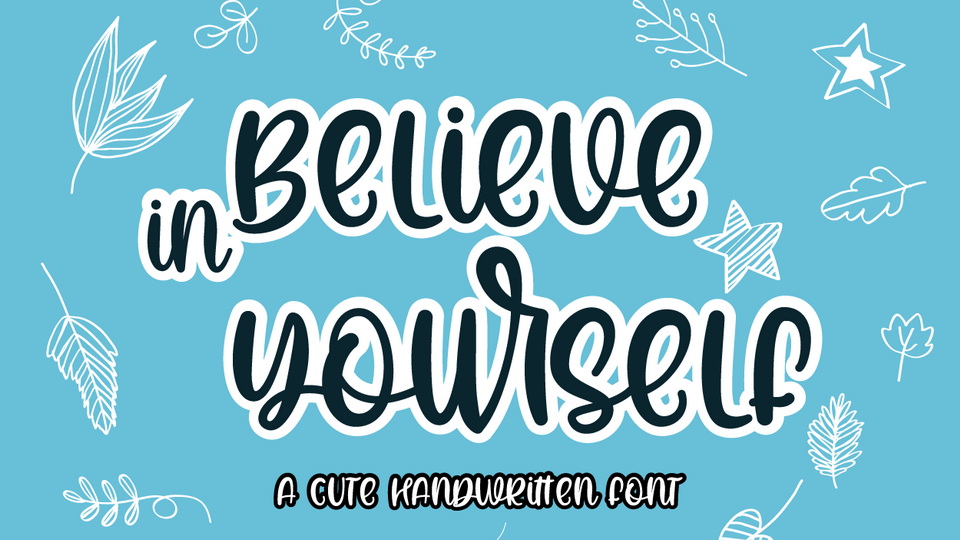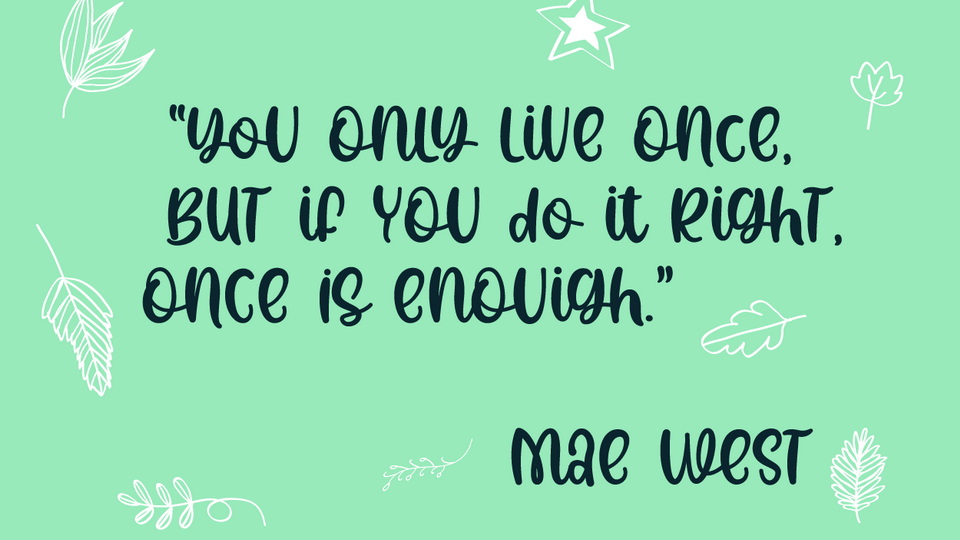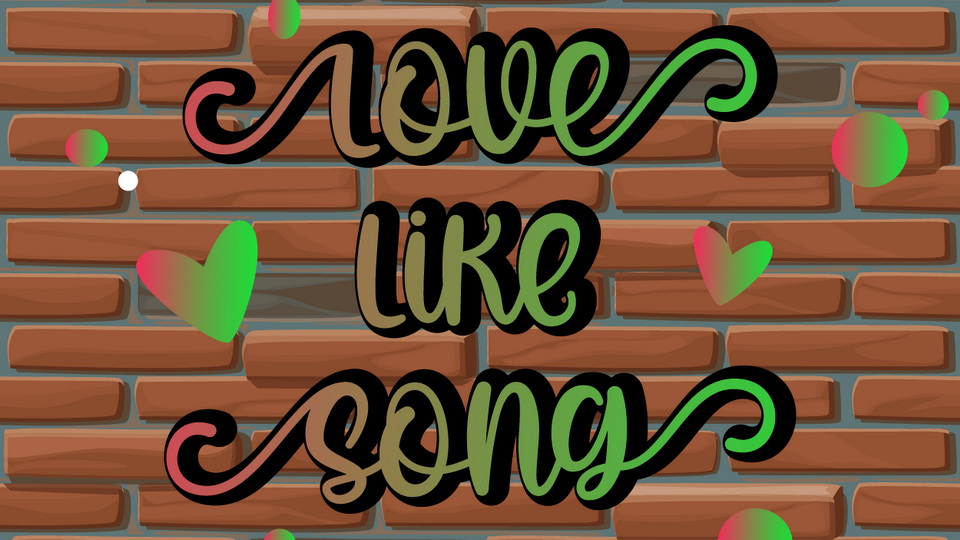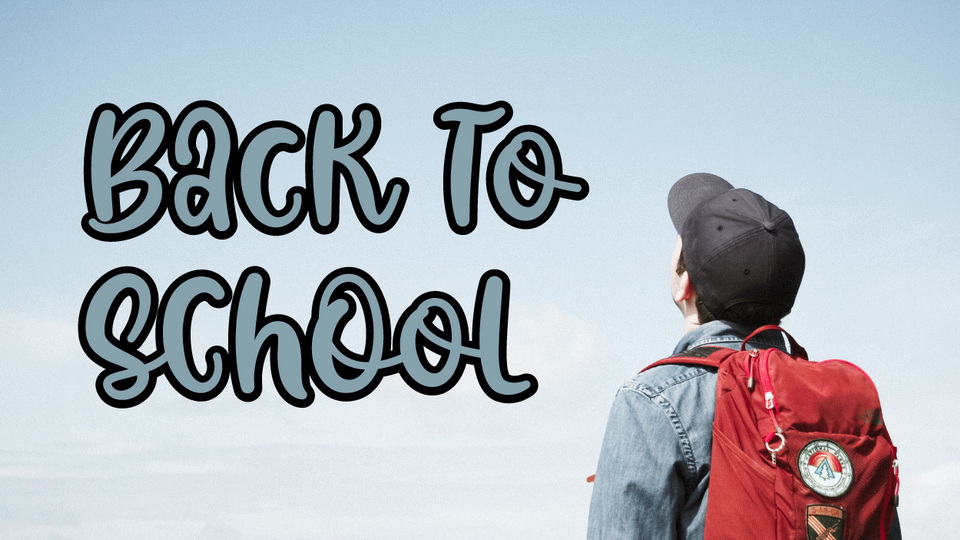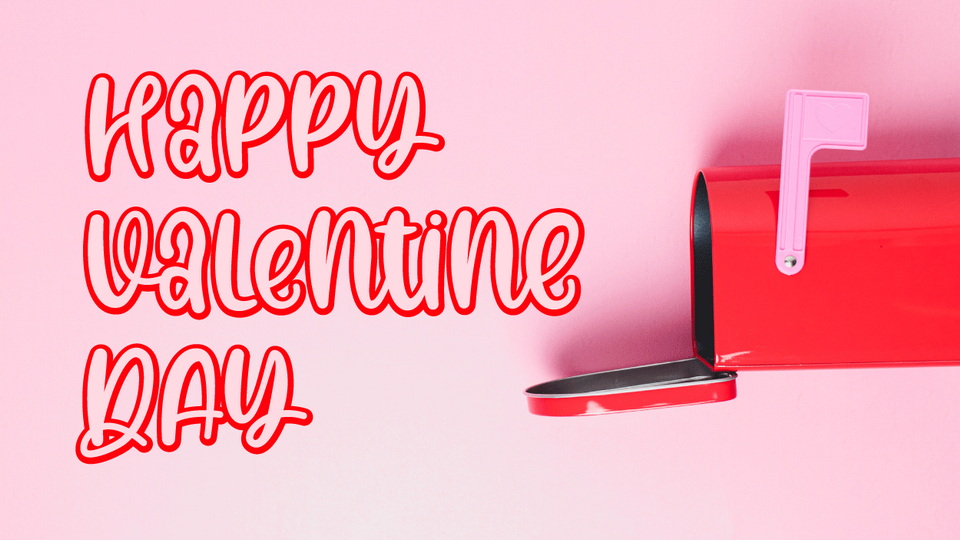
Believe in Yourself is a sweet and jolly handwritten font. This font is PUA encoded which means you can access all of the glyphs and swashes with ease! Fall for its ravishing style and use it to create outstanding designs.